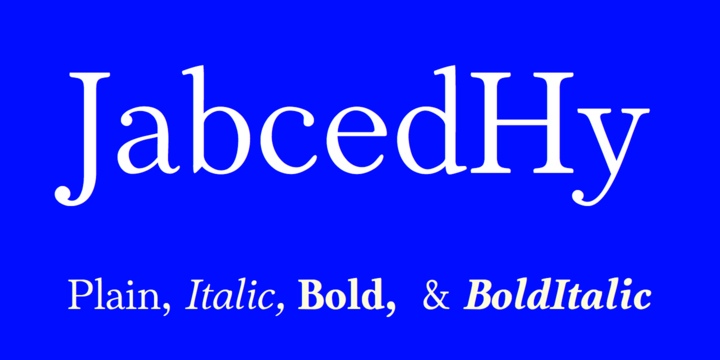
JabcedHy Font
JabcedHy Font is perfect for hybrid technology branding, innovative fusion products, experimental design projects, cutting-edge research materials, cross-platform software interfaces, interdisciplinary academic programs, modern synthesis campaigns, and progressive innovation communications where technological convergence and creative fusion are emphasized.
What makes JabcedHy Font so exciting is its revolutionary ability to embody the concept of creative fusion through hybrid letterforms that seamlessly blend different typographic elements while maintaining exceptional clarity for innovative communications. The synthesized character design reflects the interdisciplinary thinking and technological convergence that defines breakthrough innovation and creative collaboration.
The JabcedHy Font family includes thin, light, regular, medium, bold, and experimental weights, with fusion-inspired variants and hybrid ornamental elements that provide comprehensive tools for creating cutting-edge branding and interdisciplinary design systems.
This innovative typeface represents the evolution of hybrid communication, combining multiple design influences with contemporary technology industry requirements. The JabcedHy Font Free Download gives innovation-focused organizations access to typography that communicates creative synthesis and technological advancement.
The font's blended character architecture and experimental proportions create immediate associations with hybrid technologies and interdisciplinary innovation. Each letterform has been designed to convey the creative thinking and technological synthesis that defines successful fusion projects and cross-disciplinary collaboration.
JabcedHy Font excels in creating forward-thinking communications that inspire innovation and celebrate creative convergence. The typeface's hybrid character makes it ideal for technology startups, research institutions, and innovative companies targeting audiences interested in cutting-edge solutions and creative synthesis.
From biotech laboratories to design thinking workshops, this font brings innovative credibility that appeals to audiences seeking breakthrough solutions and creative fusion approaches. The versatile design maintains its experimental character across both traditional research materials and modern digital innovation platforms.